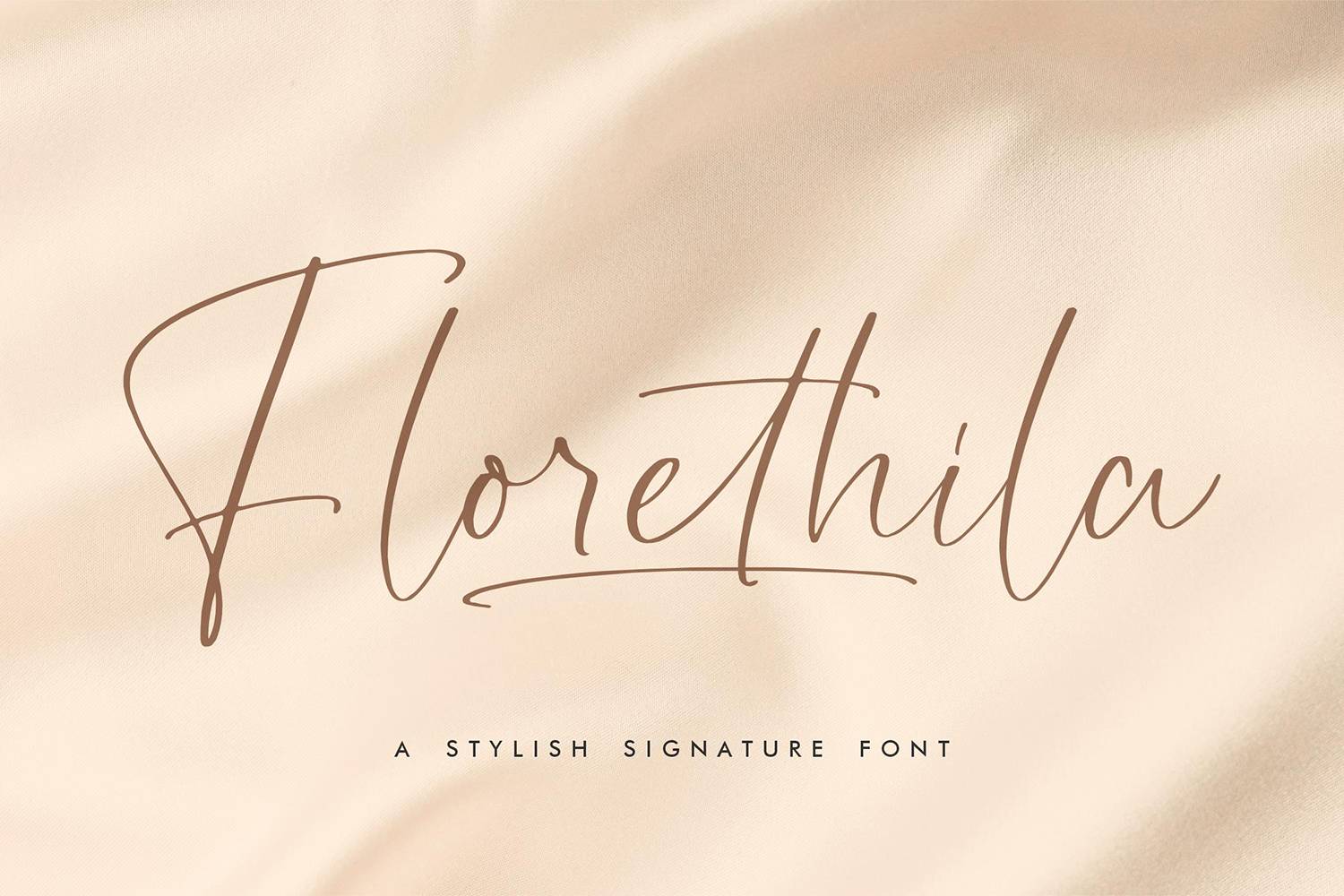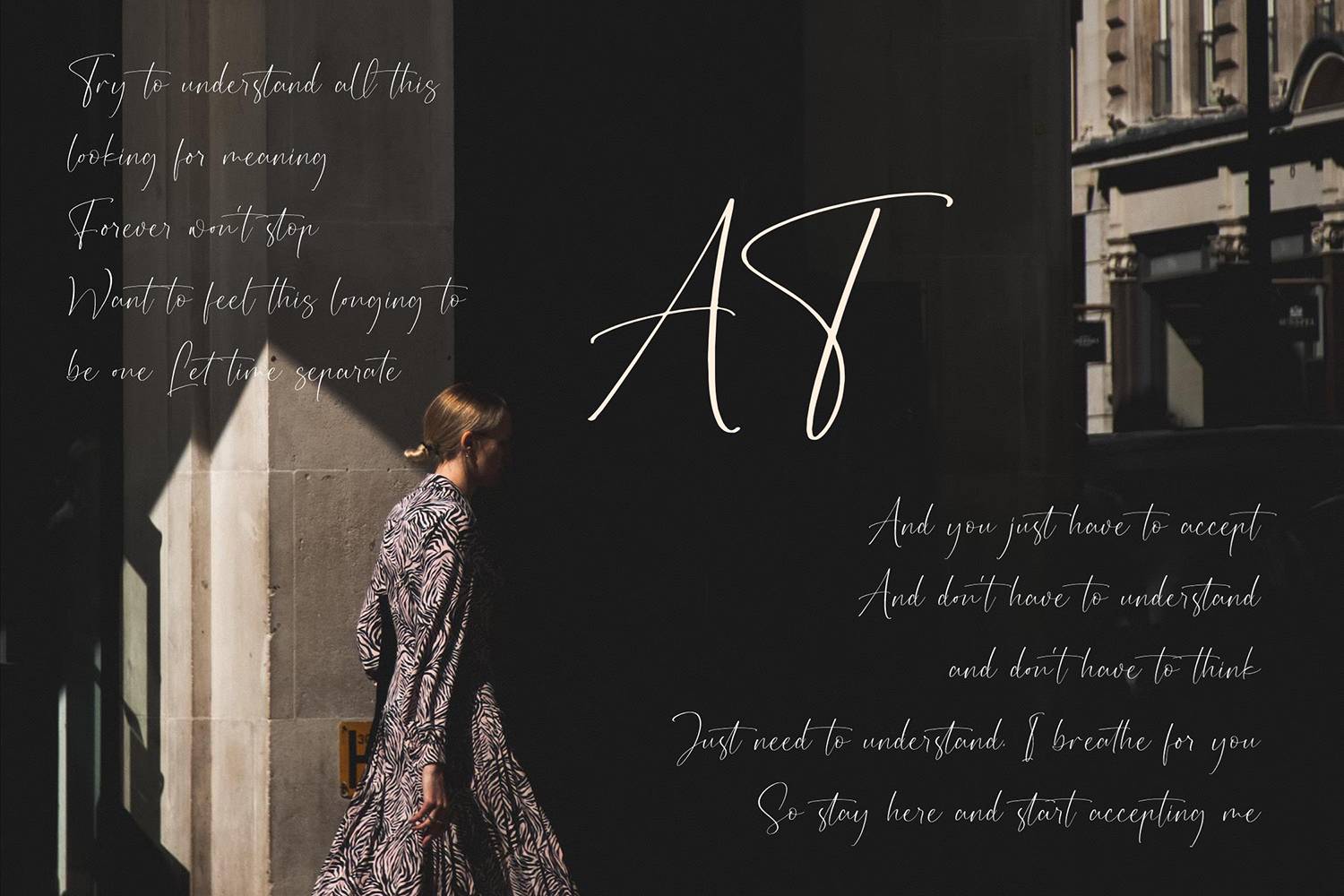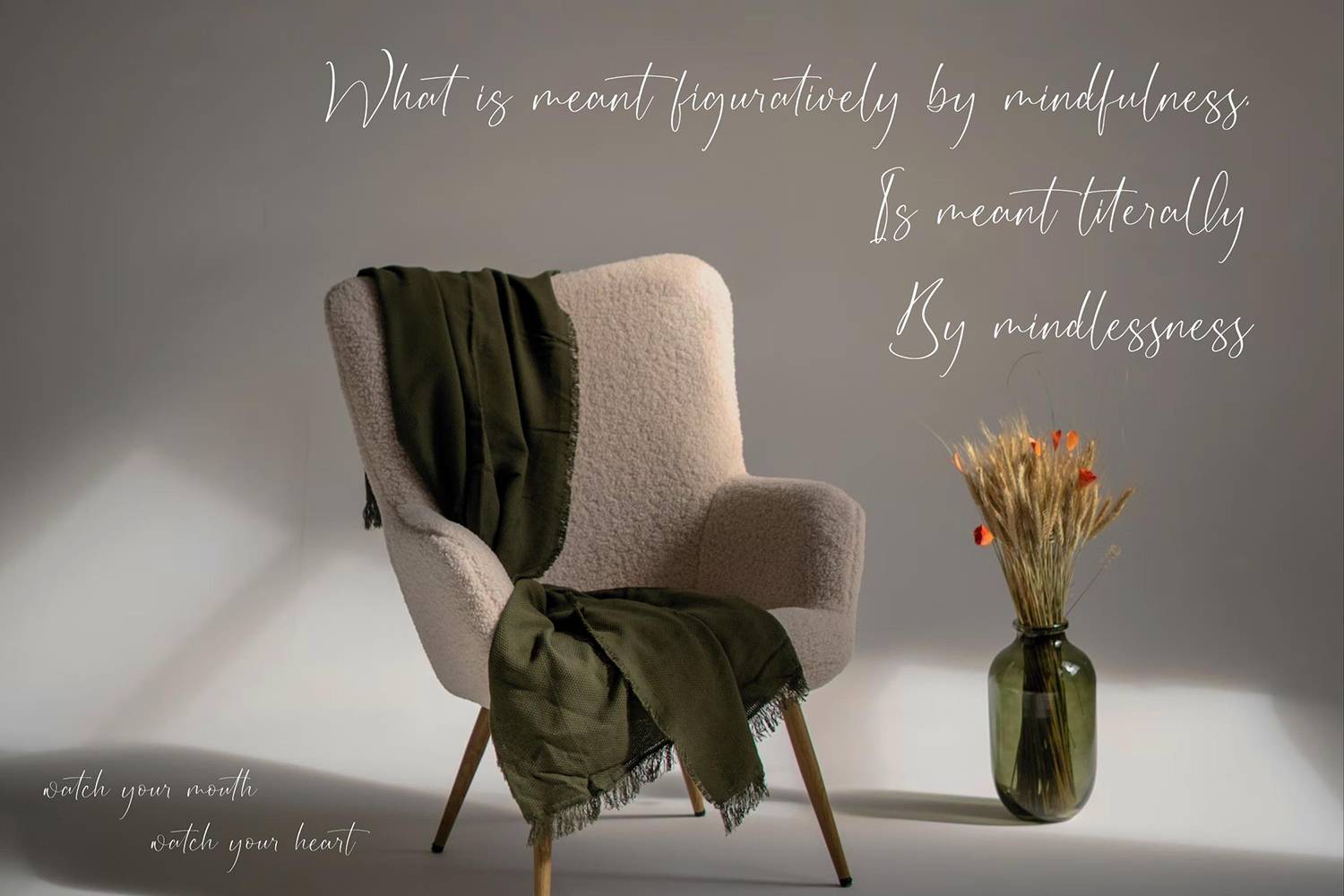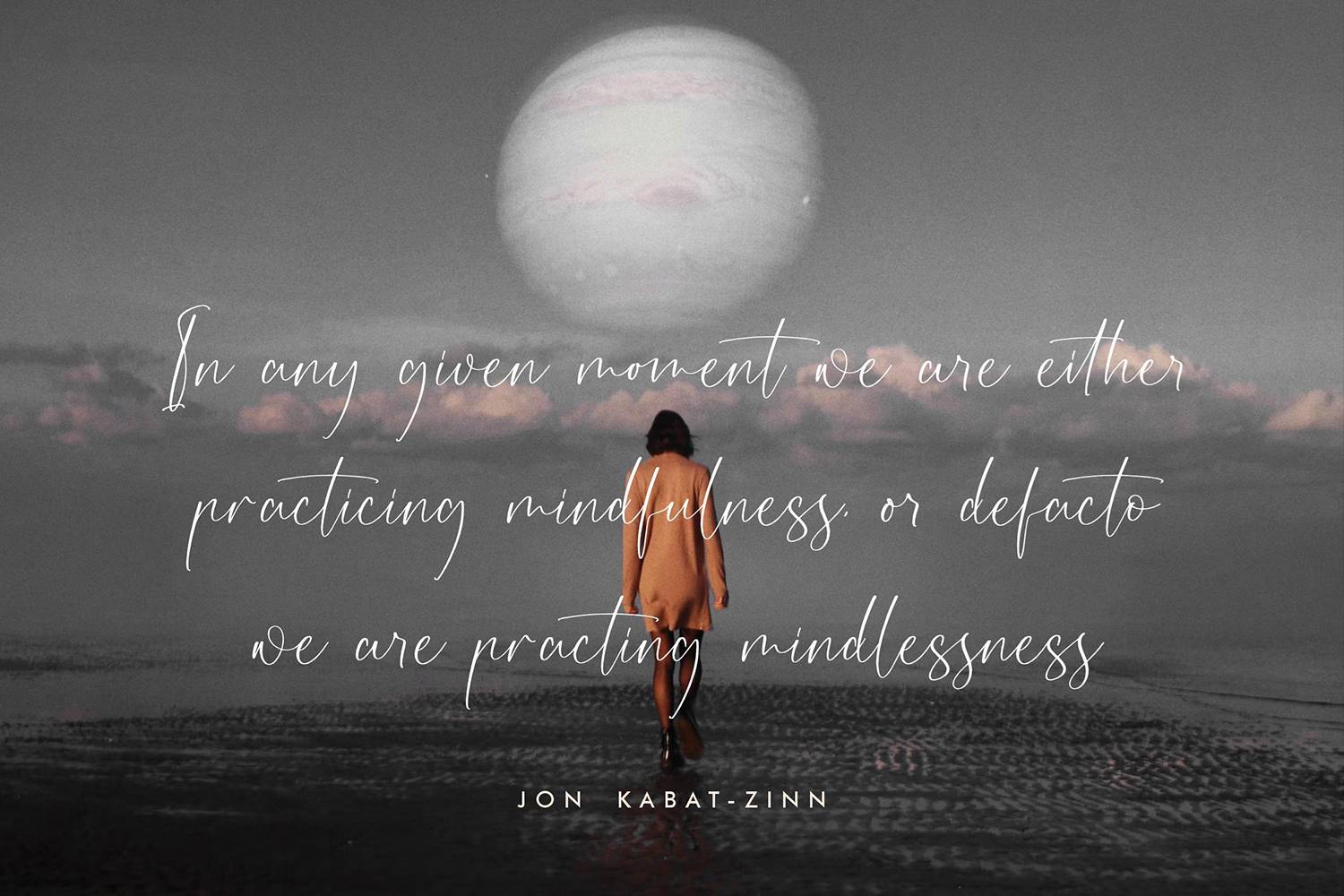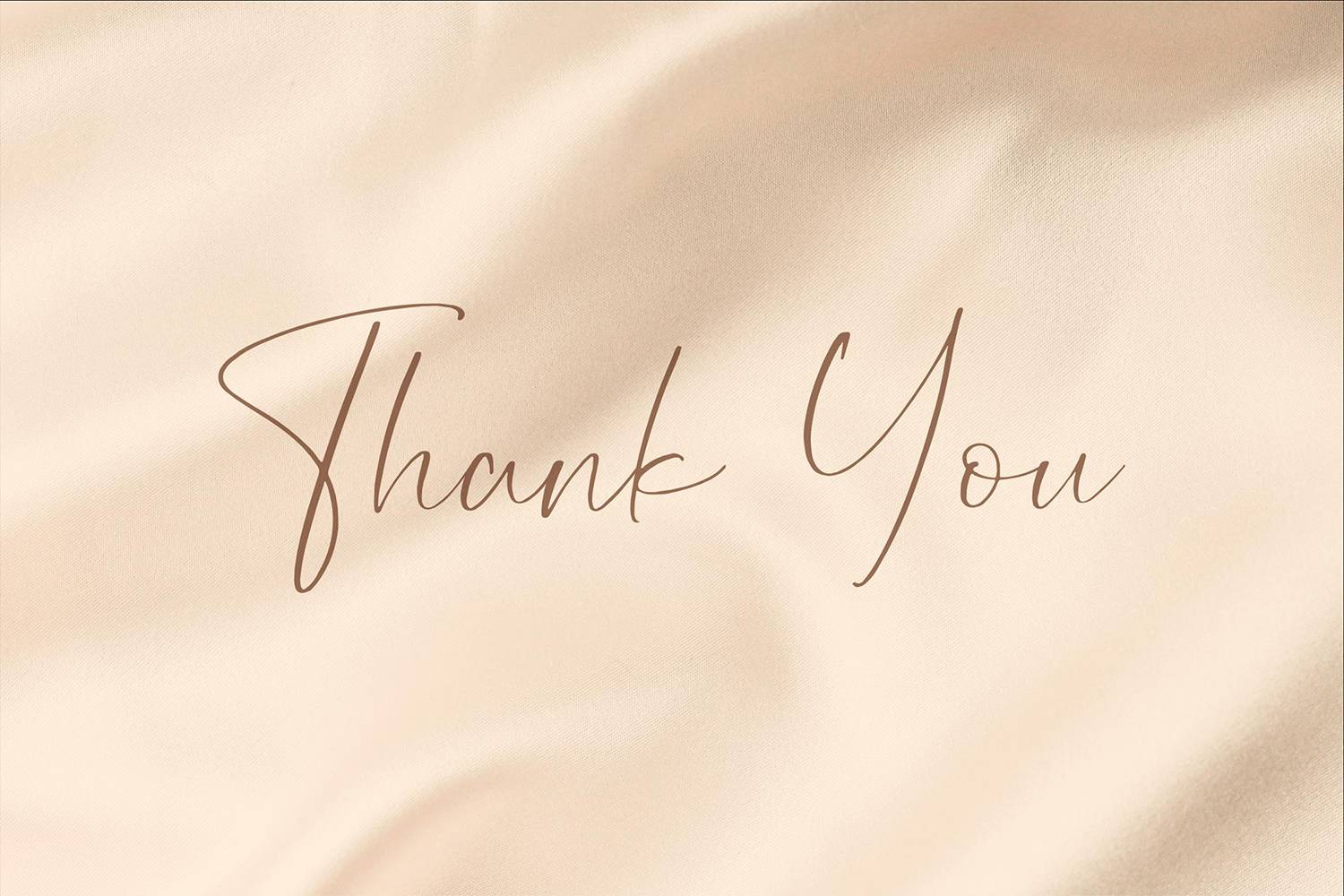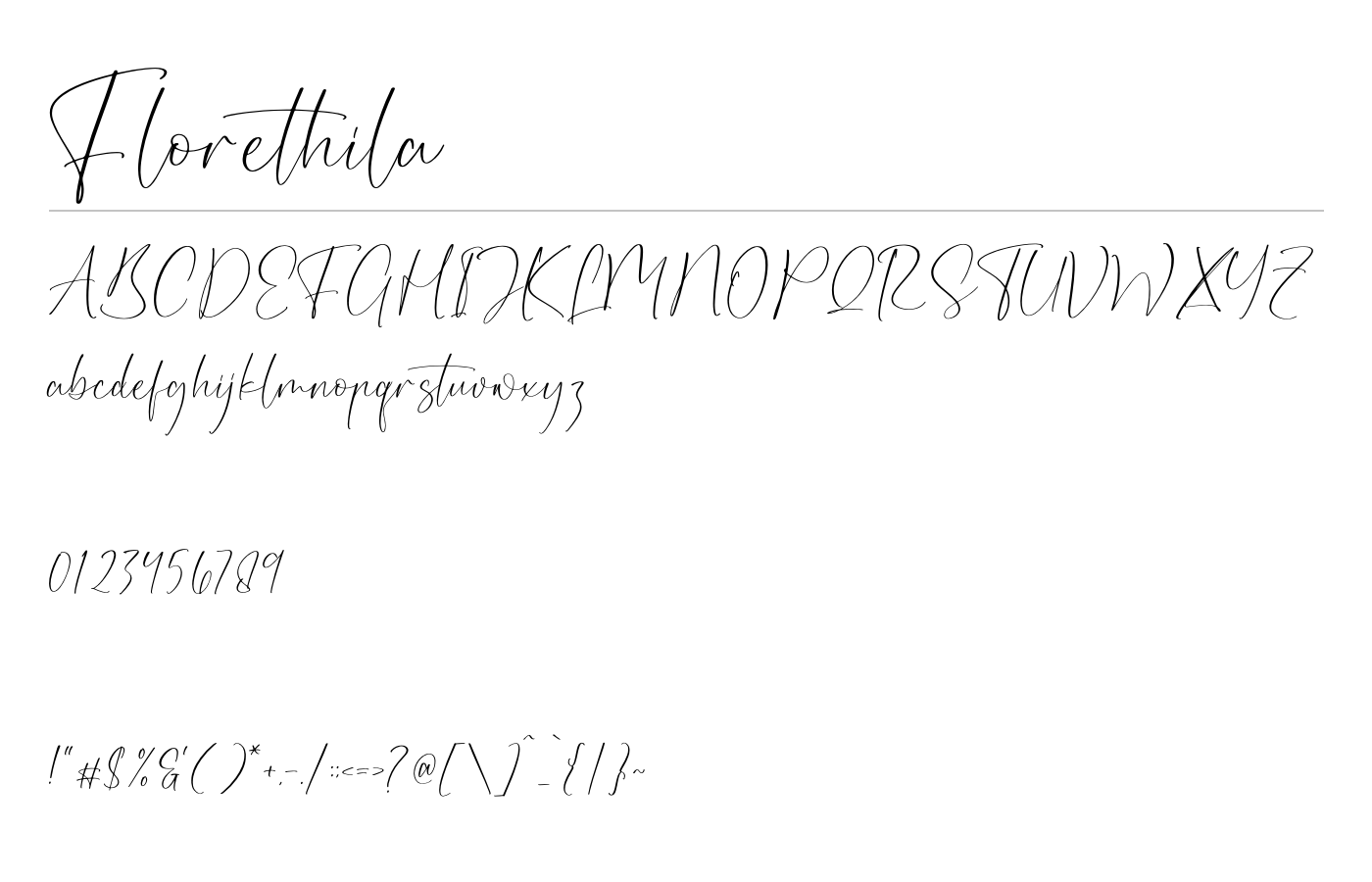
Florethila is an elegant, slender script font with a delicate and flowing handwritten style that exudes a sense of sophistication and grace. Its fine strokes and airy letterforms make it perfect for luxury branding, wedding invitations, and editorial designs where a touch of refinement and personal flair is desired. This font works best in headlines or accent text, adding a stylish and intimate feel to any creative project.
Florethila Font